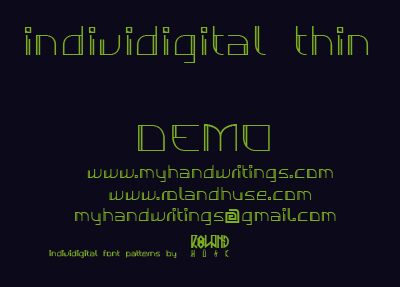
Individigital Thin by Myhandwritings Font is a free futuristic display font with exceptionally fine monoline strokes. Its broad geometric letters mix long straight runs with rounded corners and open, interrupted forms. Slim doubled lines give several characters a circuit-like detail within the otherwise spare construction.
The clean science-fiction character suits technology branding, electronic music artwork, game interfaces, and event posters, particularly when the lettering can become part of a diagrammatic graphic. Its clearest audience is designers working in digital culture and experimental fashion.
INDIVIDIGITAL THIN is a lighter version of Individigital. It uses extra lines instead of gaps.